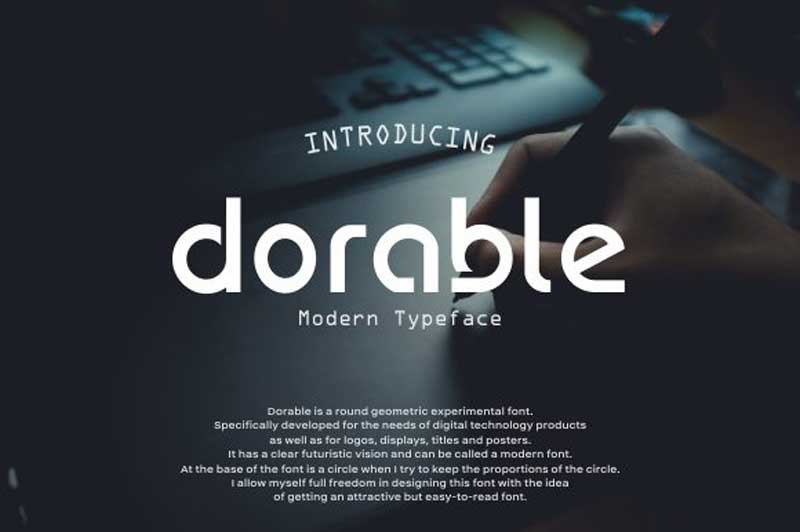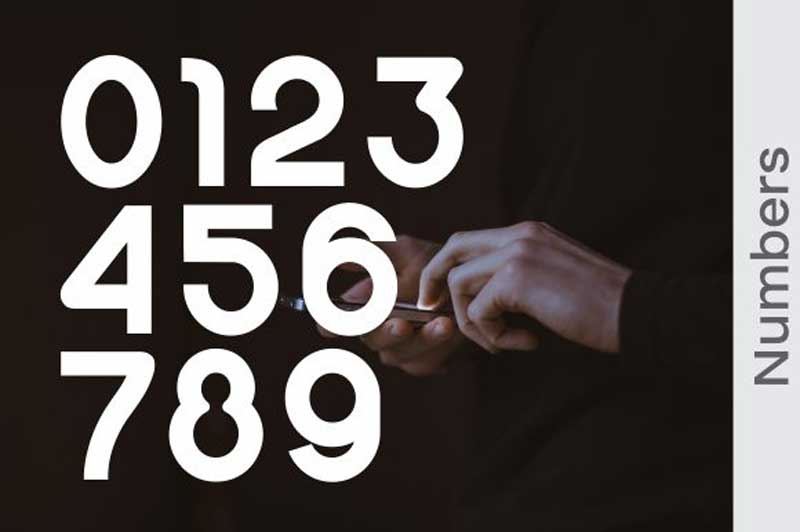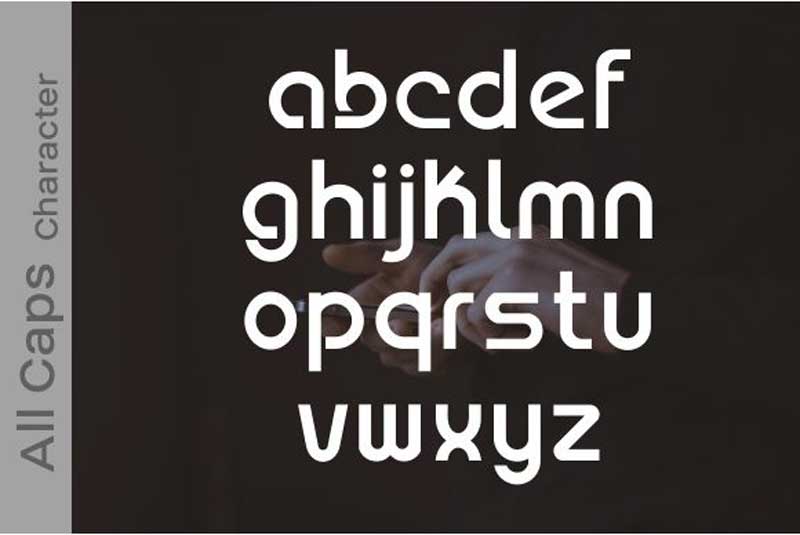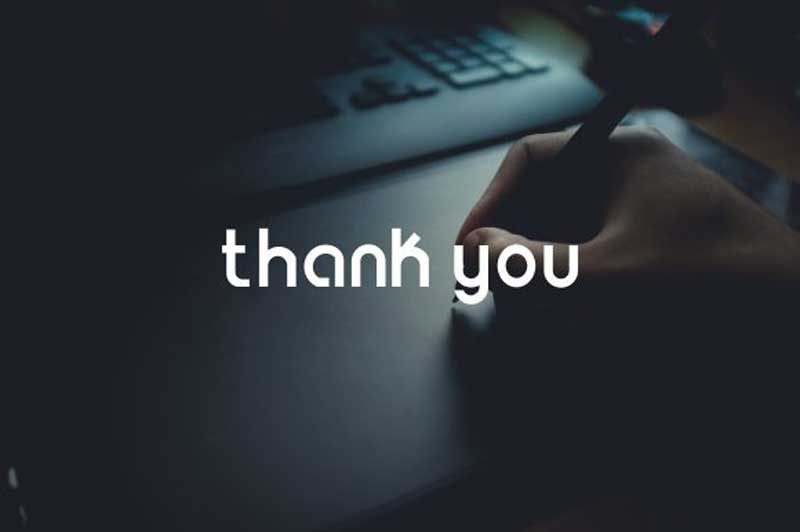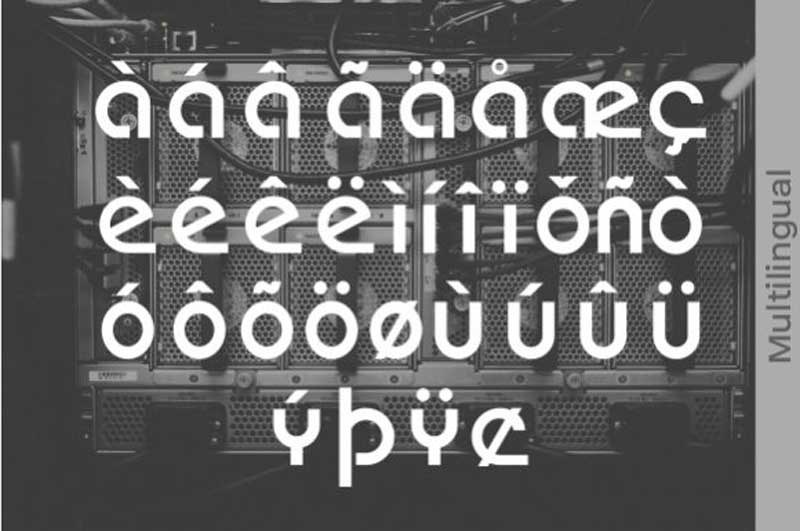
Dorable is a round and modern display font. It features an incredibly classic style, while still keeping a friendly feel. Get inspired by its unique look!